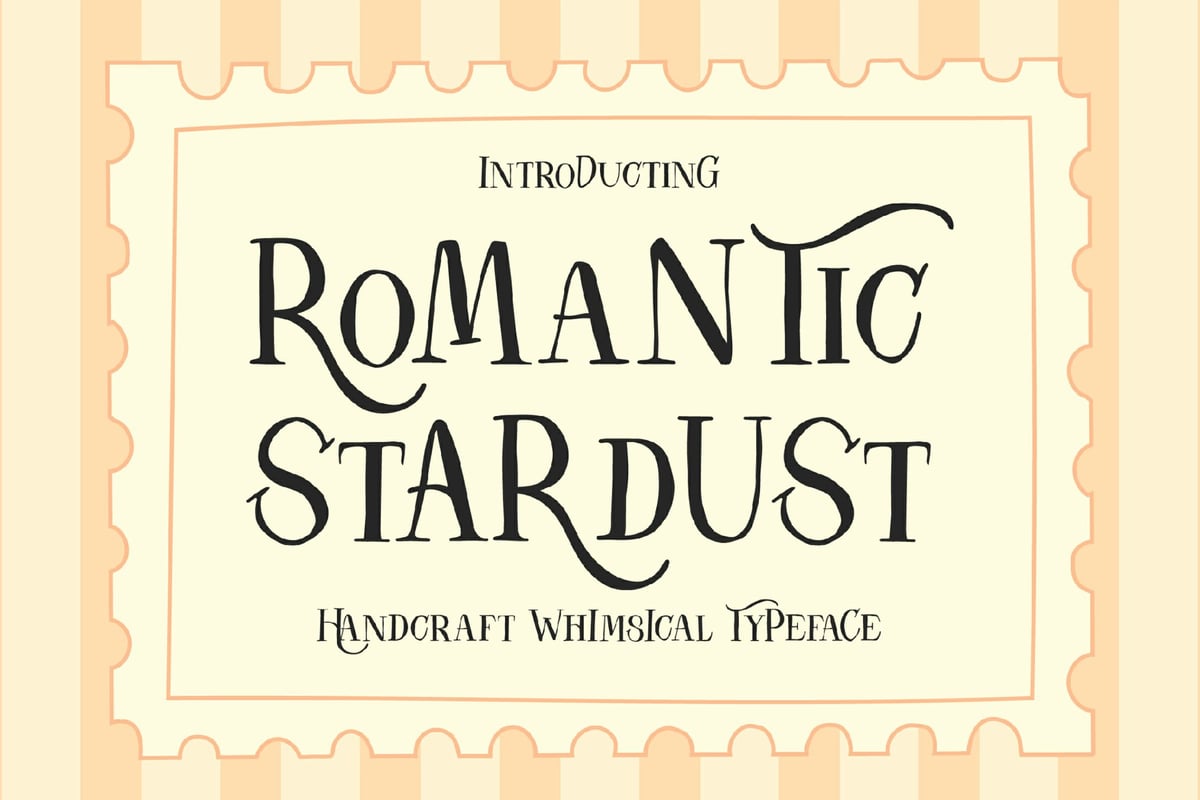
Romantic Stardust - Handcrafted Typeface
Romantic Stardust is the whimsical serif typeface that brings magic, warmth, and vintage charm to every design.
With playful curves, decorative swashes, and dreamy hand-drawn letterforms, Romantic Stardust captures a romantic, fairytale-inspired aesthetic that feels both timeless and unique. Whether you're designing for a wedding, a boutique brand, or an editorial project, this typeface adds personality and elegance that stands out.
Perfect for:
- Wedding invitations and stationery
- Greeting cards
- Book covers
- Boutique branding and packaging
- Posters and logos
- Elegant display and decorative projects